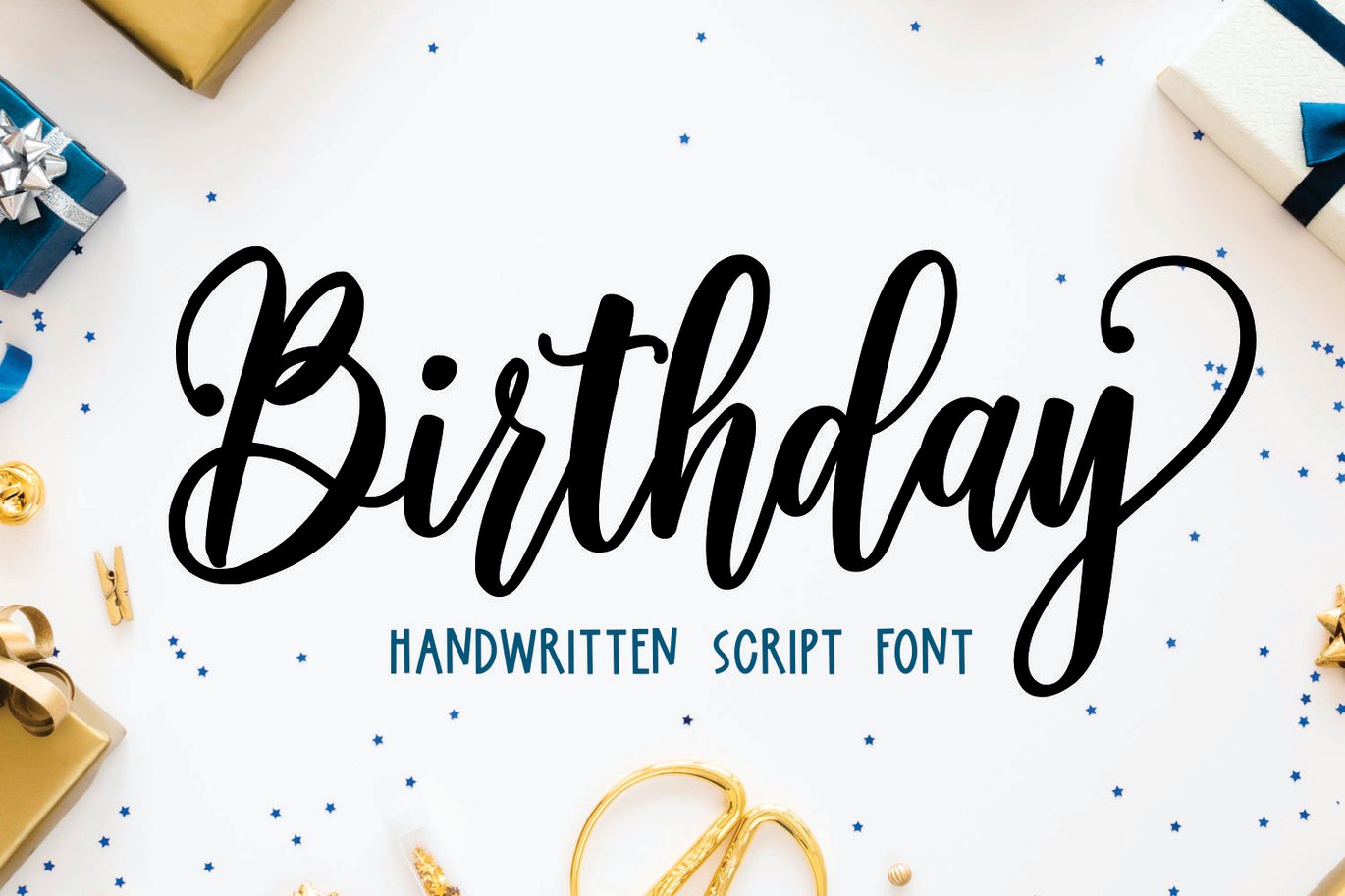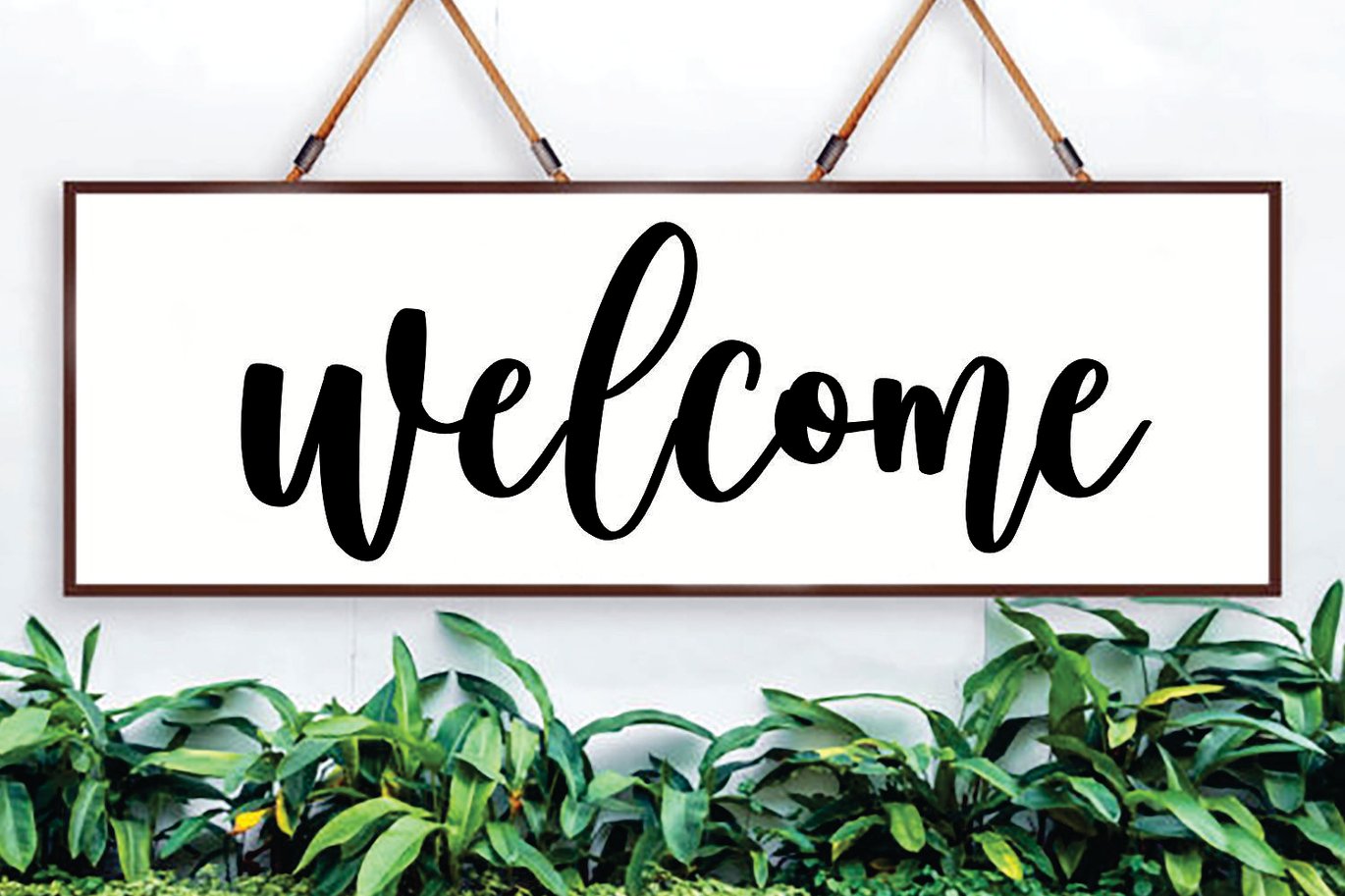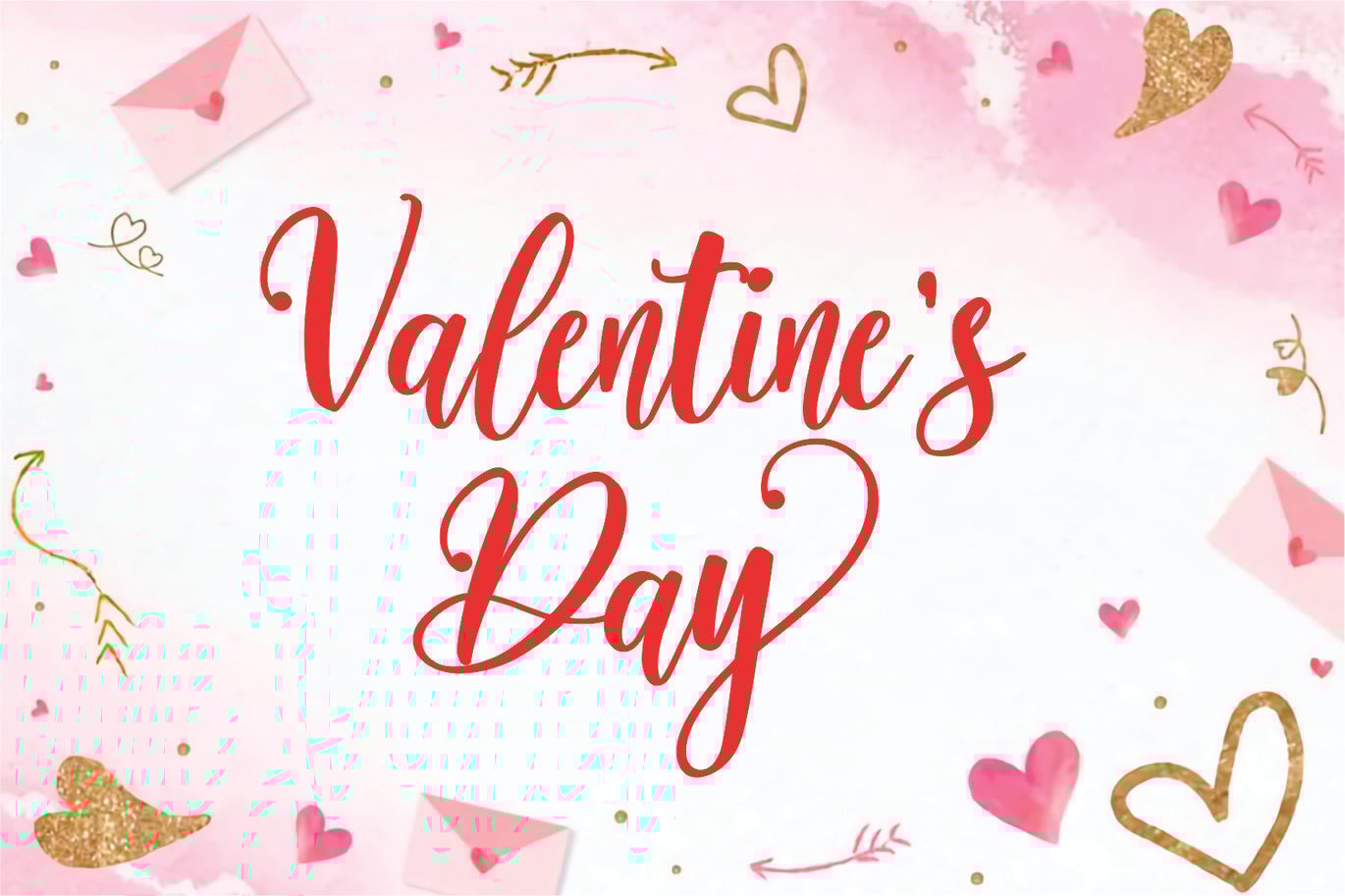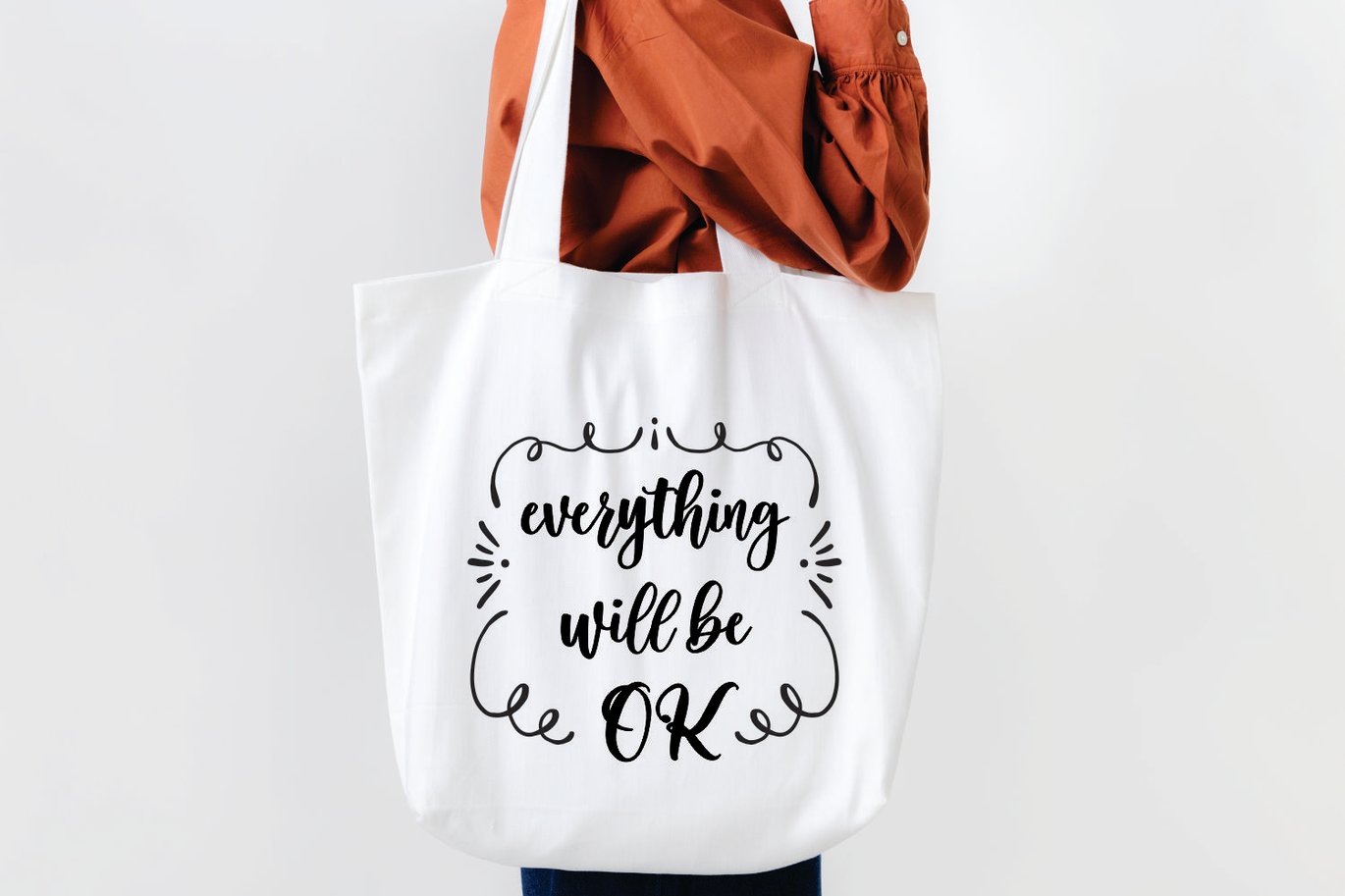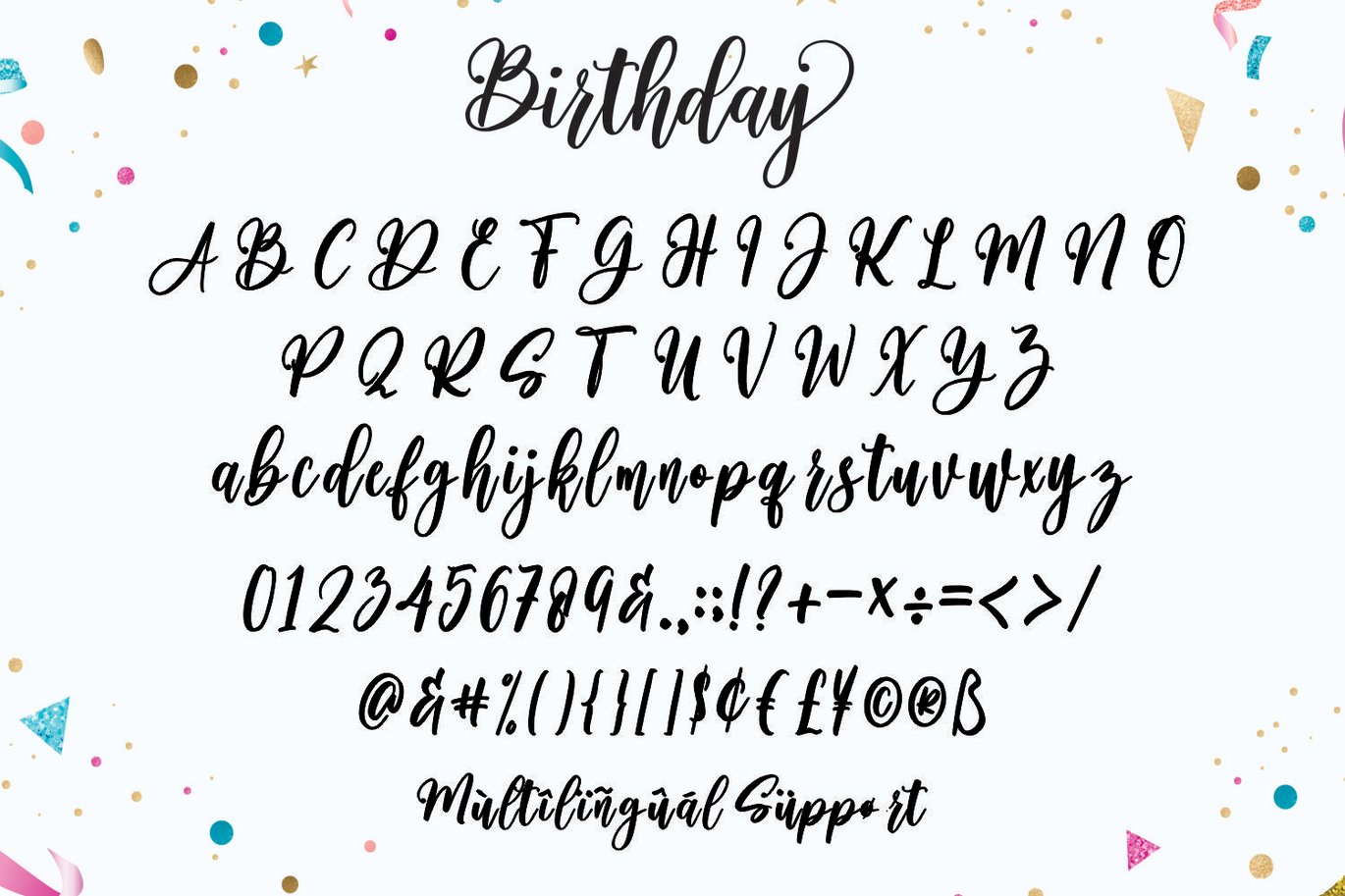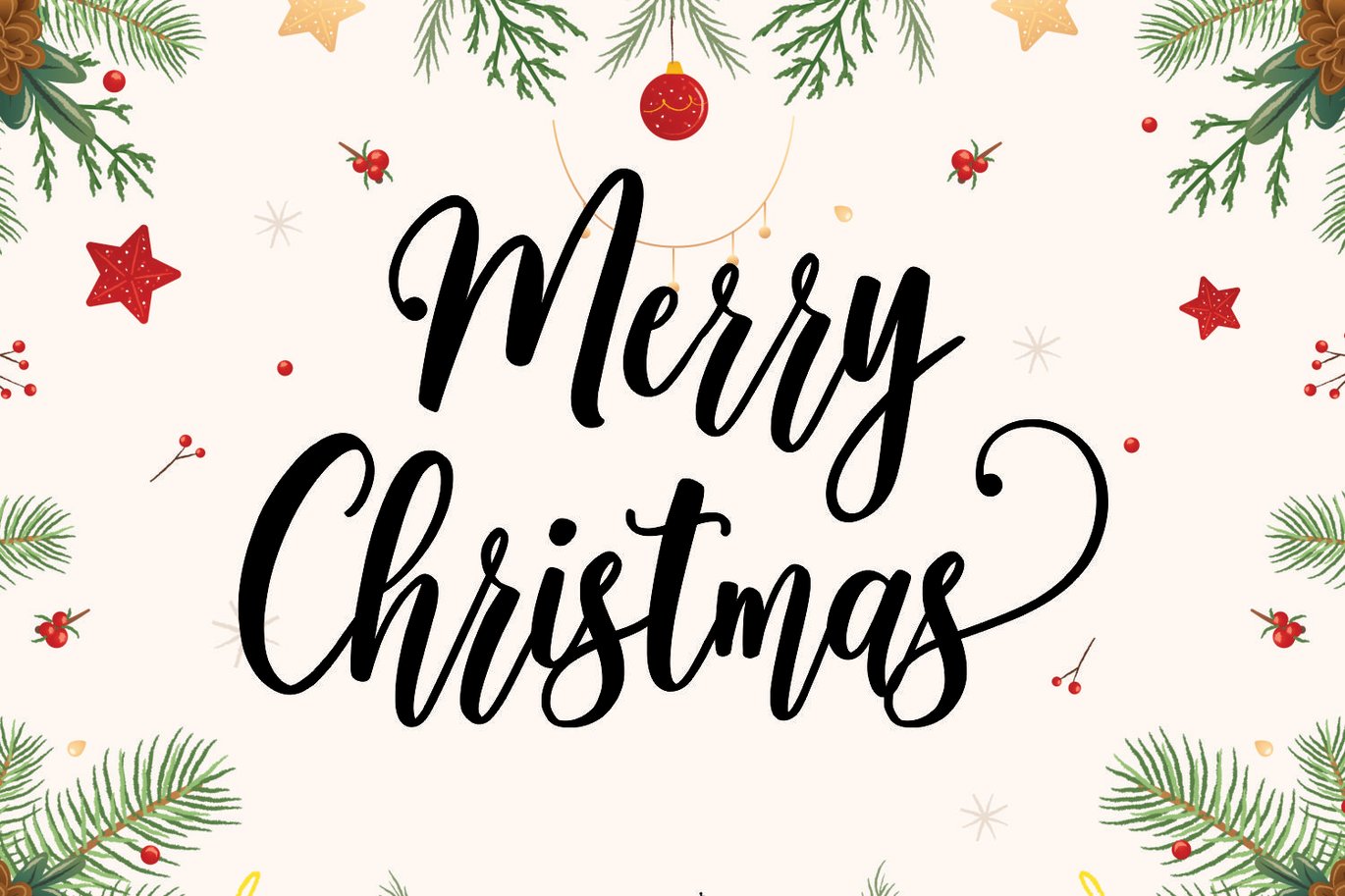
Birthday – Wedding Font
Birthday is a script handwritten font.
It is a quirky and natural hand-drawn font.
Together or apart, these fonts are ideal for adding a chic and cheery touch to your crafts.
This font is ideal for crafting, branding, and decorating any project. These fonts are perfect for wedding invitations or your blog.
Also with their help, you can create a logo or beautiful frame for your home. Or just use it for your business, book covers, stationery, marketing, magazines, and more.
Fall in love with its incredibly versatile style and use it to create spectacular designs!
Use this font for any crafting project that requires a personalized look!